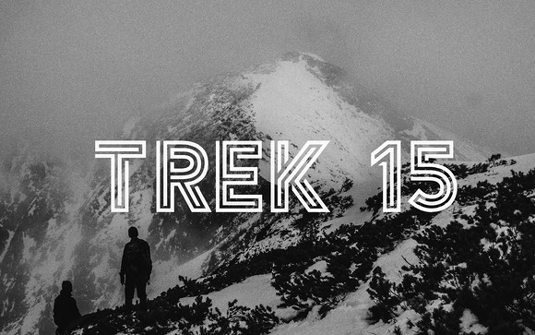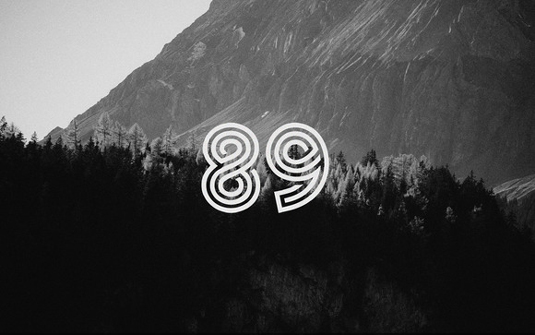
Font of the day: Argon
Every day we showcase the best fonts on the web. Today it's Argon by Tom Anders Watkins, which is free for personal use.
Argon by Tom Anders Watkins
Kicking off our font of the day posts this week is freelance designer with his latest typeface Argon. "Argon is a unique typeface with a sporty, modern, adventurous edge," Watkins comments on Behance. "Each letter is a solved three line thick puzzle that took me many months to put together.